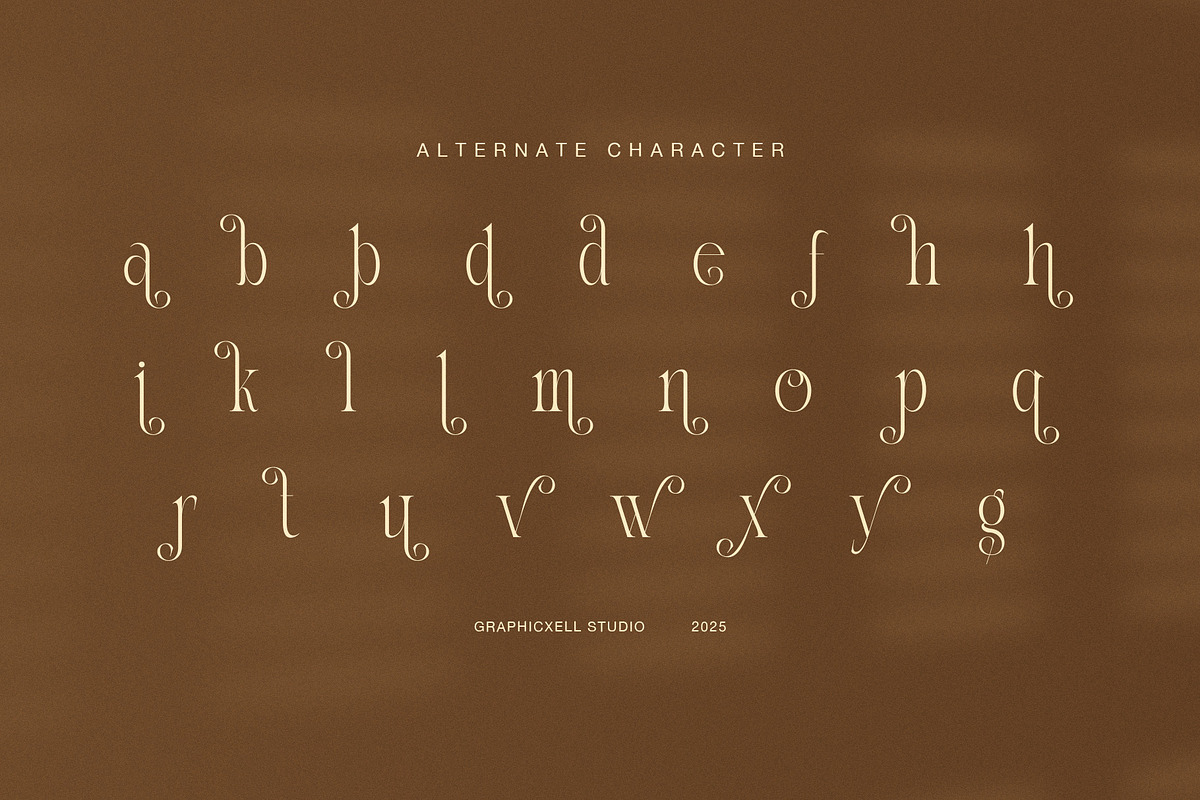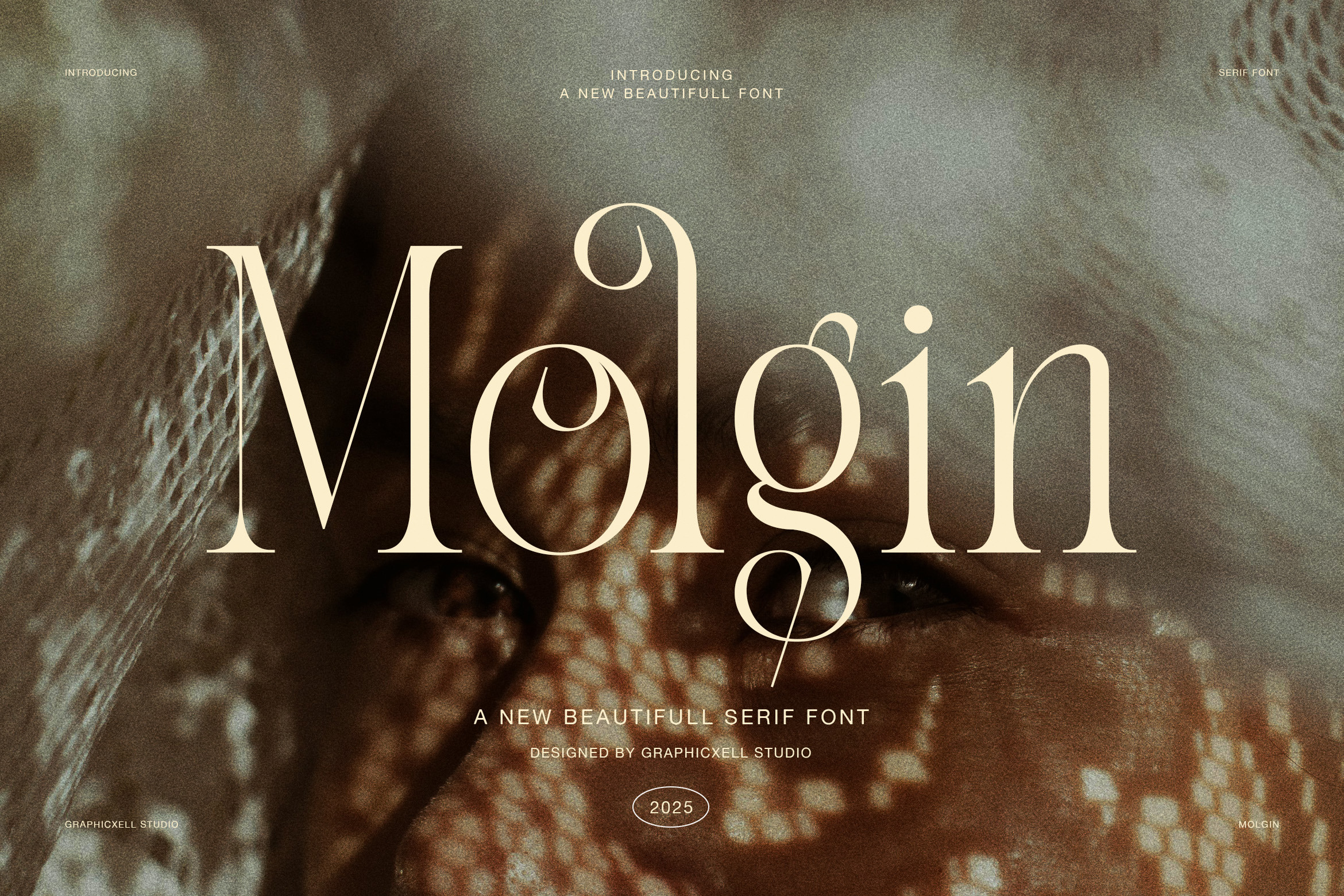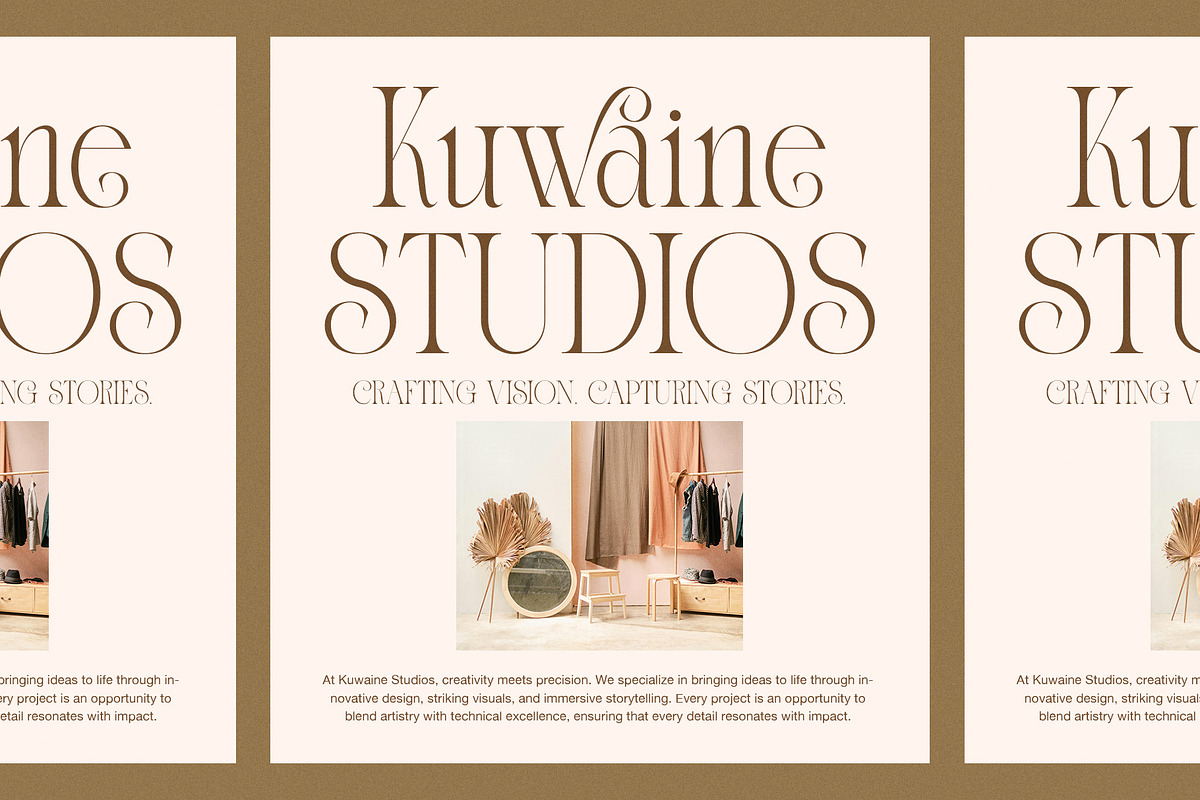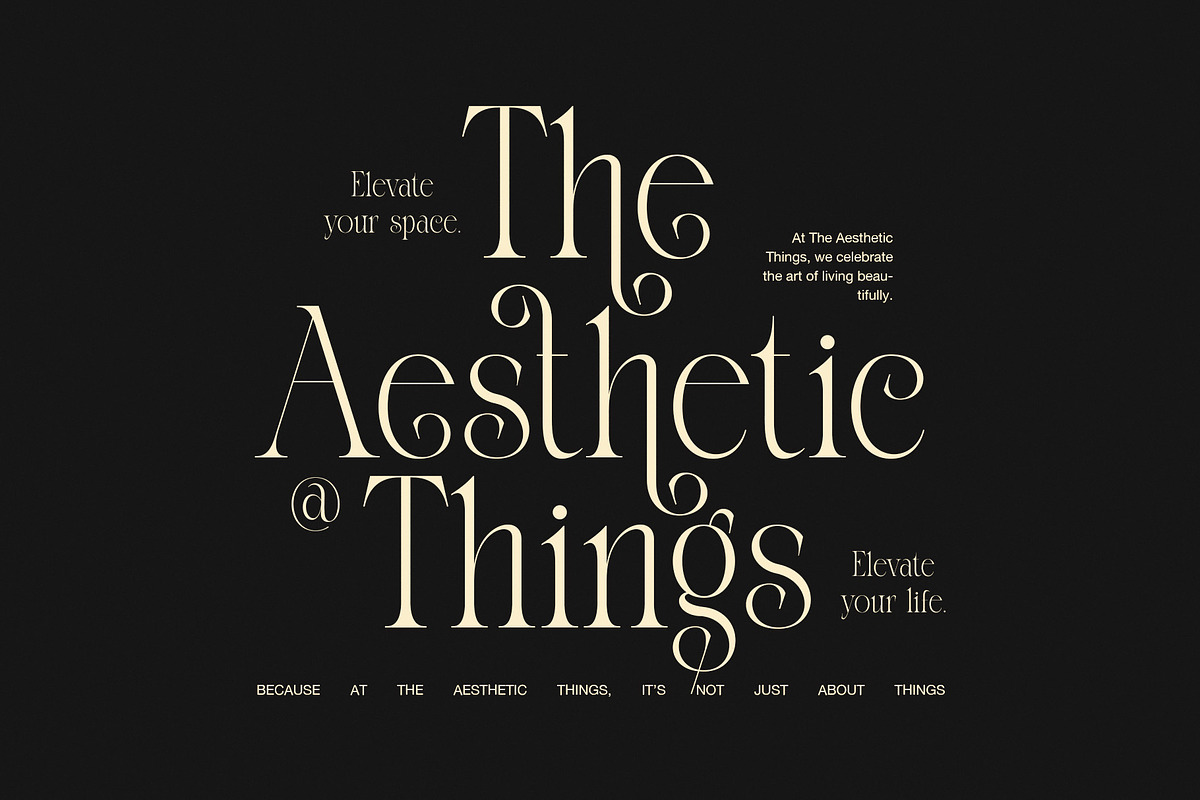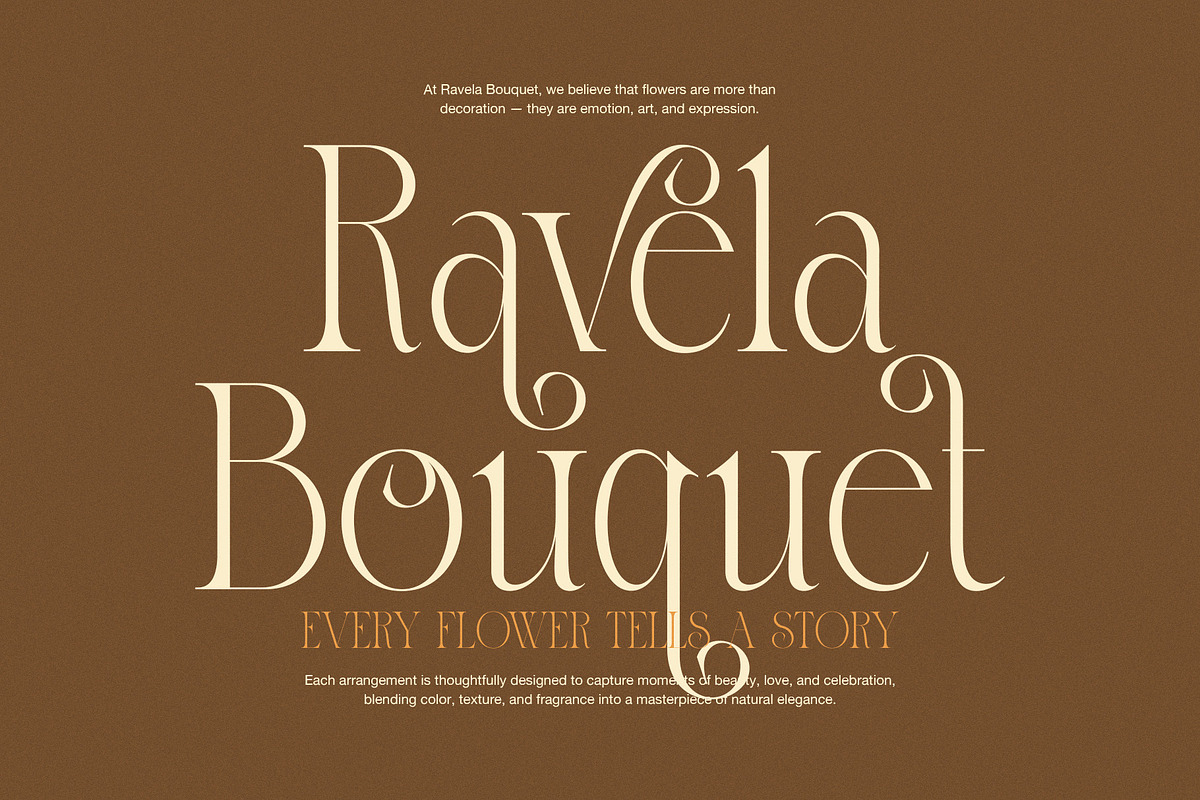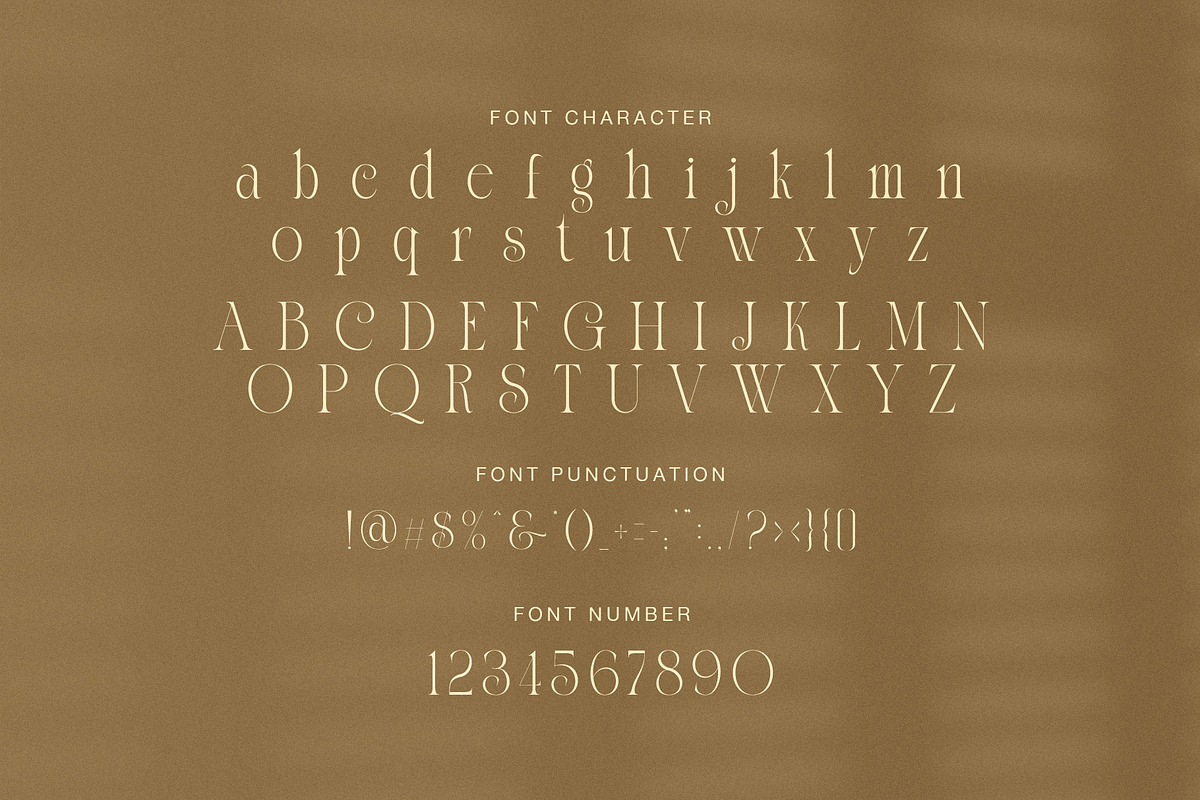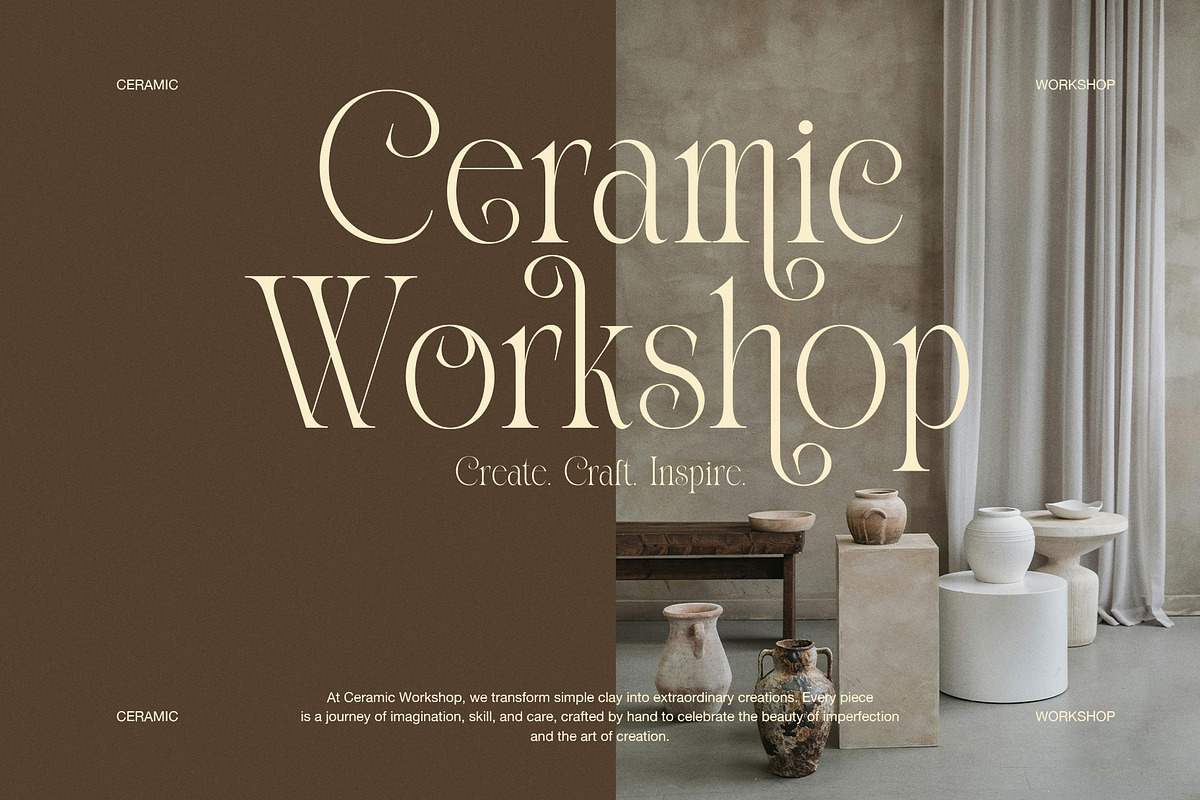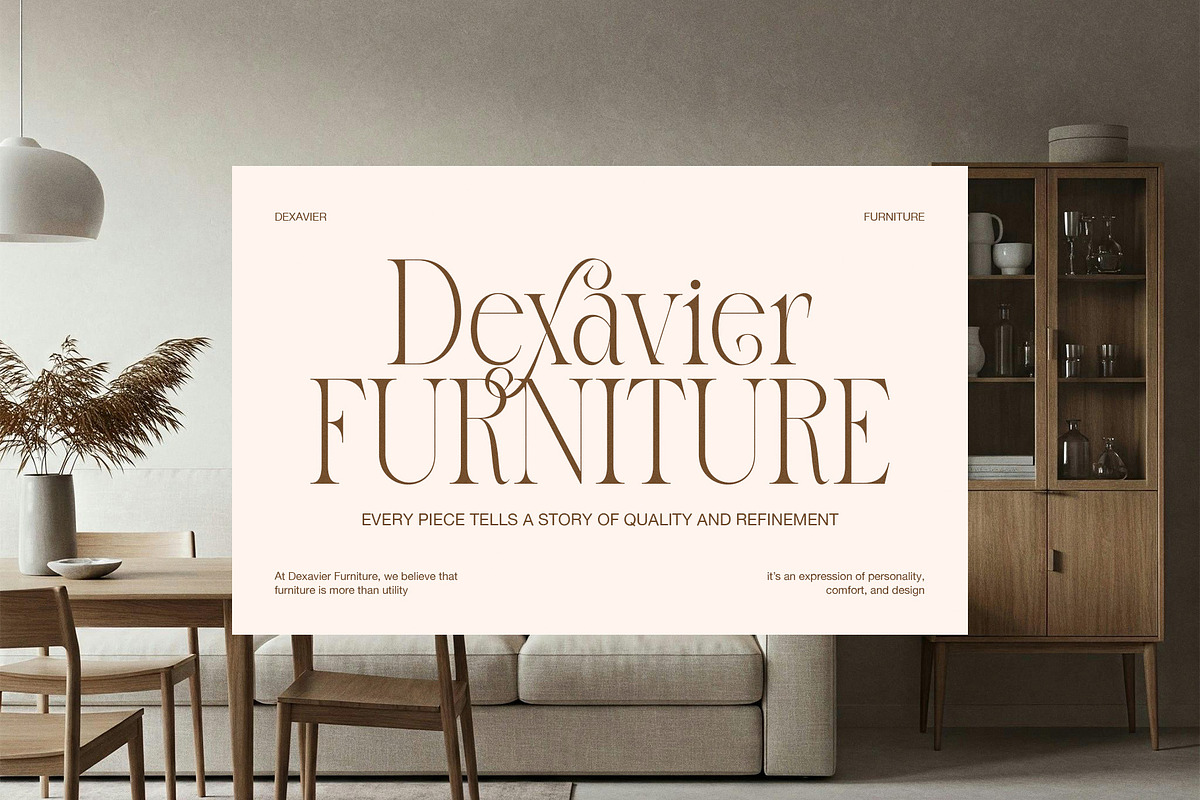
Molgin Elegant Modern Serif Font
Molgin is an elegant modern serif font created to express refinement, warmth, and contemporary luxury. It features graceful curves, balanced contrast, and decorative alternates that feel artistic yet controlled. Because every letter looks intentional, Molgin delivers beauty without losing readability.
This serif font blends classic editorial structure with a soft modern aesthetic. As a result, designers choose Molgin for fashion editorials, interior branding, and lifestyle visuals. Moreover, the elegant alternates add personality while keeping compositions clean and harmonious. Each glyph supports a calm and sophisticated rhythm.
Molgin works beautifully for designers who value atmosphere and detail. Therefore, it fits perfectly in furniture branding, ceramic workshops, florists, and boutique studios. In addition, it performs strongly in headlines, logos, and large display text where elegance must stand out.
Why choose Molgin Serif Font?
Elegant serif design with modern contrast
Decorative alternates for expressive typography
Clear readability for print and digital use
Ideal for editorial, lifestyle, and interior branding
Timeless character with a contemporary feel
Furthermore, Molgin adapts smoothly across creative industries. Whether you design for home décor brands, aesthetic studios, cafés, or premium services, this font adds warmth and authority. Because spacing stays balanced, Molgin pairs beautifully with clean sans-serif fonts.
Molgin does more than present text. Instead, it creates mood and storytelling. Each serif feels refined, while every curve guides the eye naturally. Consequently, your designs appear elegant, calm, and memorable.
Ultimately, Molgin offers a modern serif solution for designers who seek sophistication and versatility. Use it to elevate branding, enrich editorials, and communicate timeless beauty with confidence.